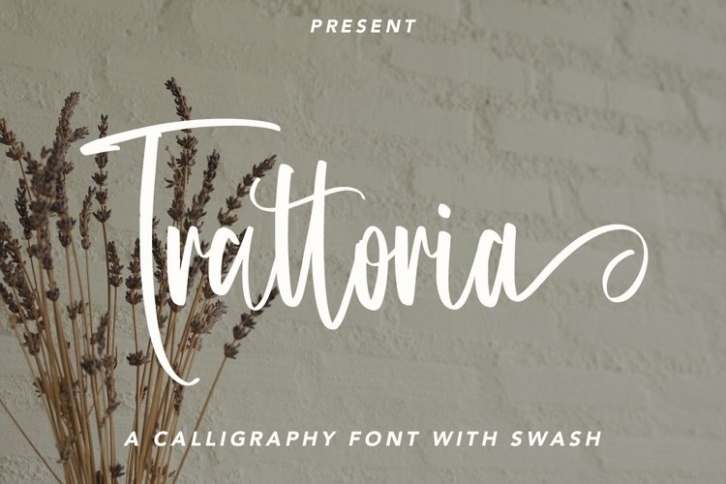
Web Trattoria is a beautiful font that was designed by plusstore. It's a great choice for designers and creatives who need such a font. It was released on June 13, 2021 and the file size is 18.98 MB. Web Trattoria may give a more youthful, expressive and casual look to your project. It is a very beautiful, refined, elegant, and high-quality font.